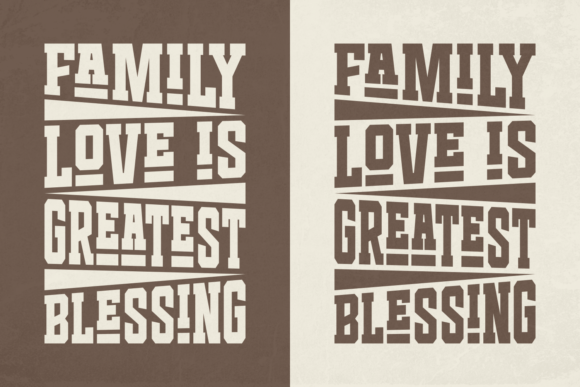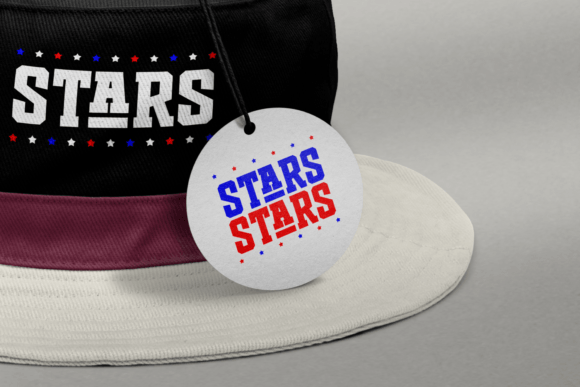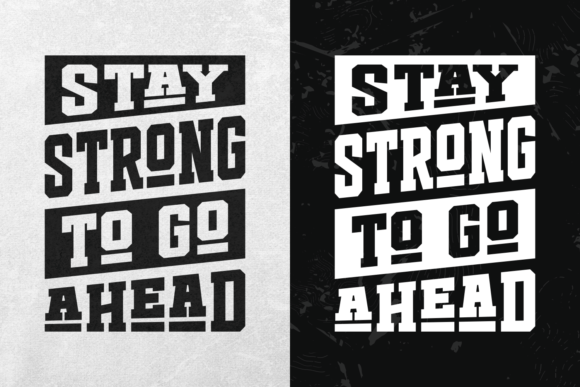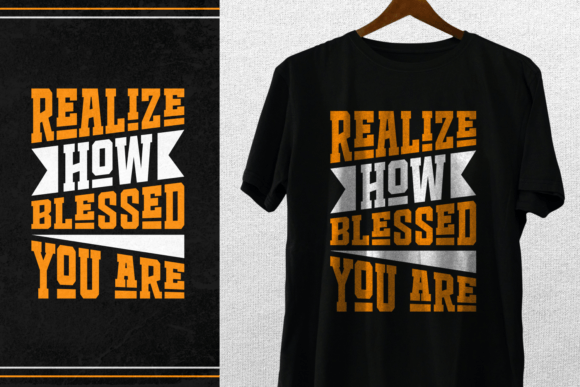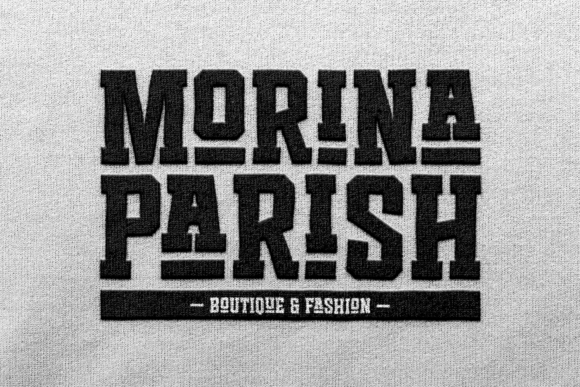
Introduction to Famous College Font Font
Fonts play a crucial role in design, and the Famous College Font font is a typeface that brings both character and versatility to any project. Whether you’re working on a branding project, a website, or a print design, the Famous College Font font offers a unique style that can elevate your work.
Famous College font adapts wonderfully in contexts such as designing labels for perfumes, cosmetics, magazine covers, posters, manifests, flyers, social posts, and fashion.
Use it in your creations so you can notice how fastly it becomes one of your favorite fonts .
Key Features of Famous College Font Font
Why Choose Famous College Font Font?
The Famous College Font font is more than just a typeface – it’s a design tool that helps you communicate your message with style and clarity. Its unique character set and versatile design make it suitable for a wide range of applications, from elegant invitations to bold headlines.
With its carefully crafted letterforms and balanced proportions, the Famous College Font font ensures readability and visual appeal across all mediums.
What makes Famous College Font font special?
The Famous College Font font stands out with its unique design, exceptional readability, and versatility across various design applications.